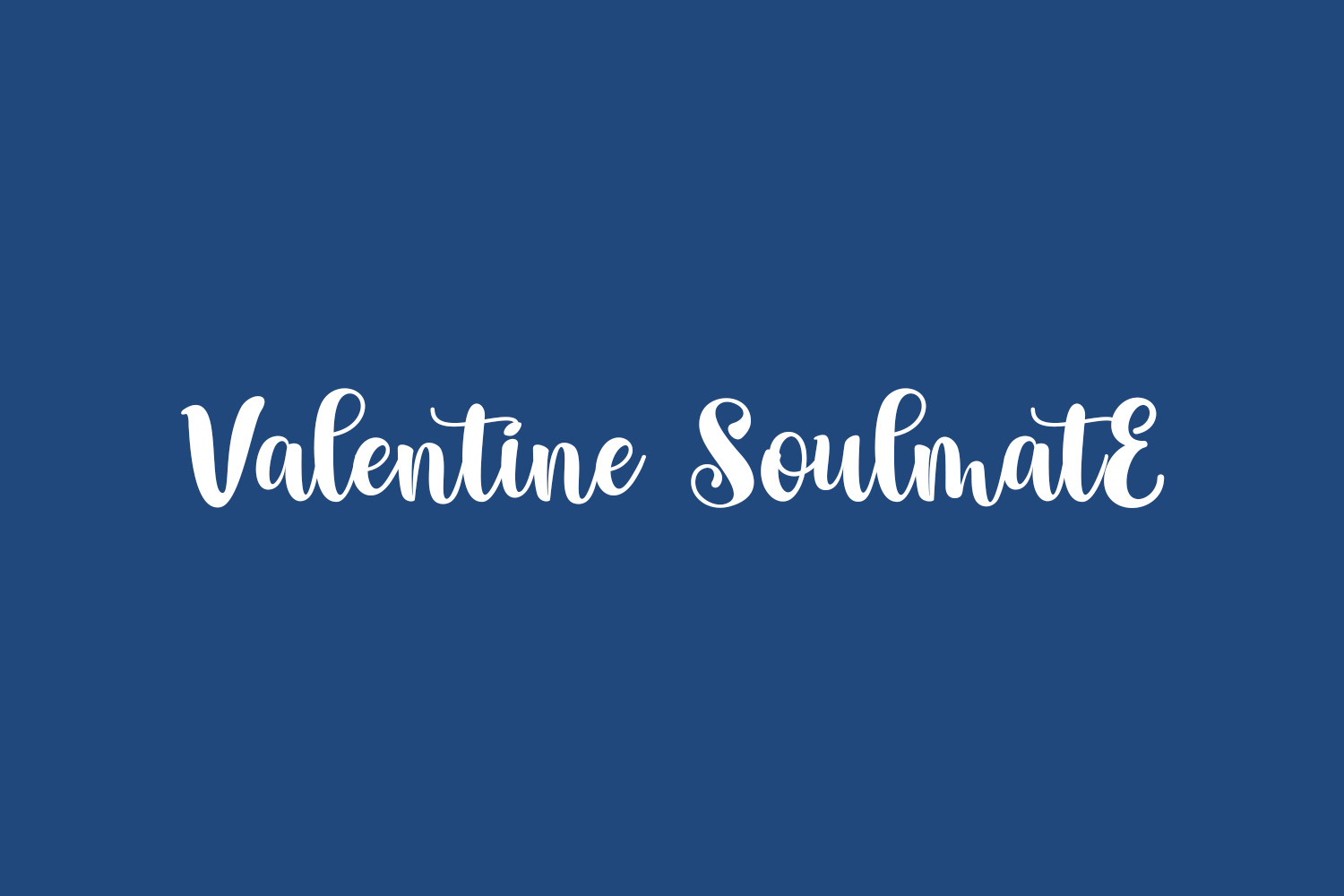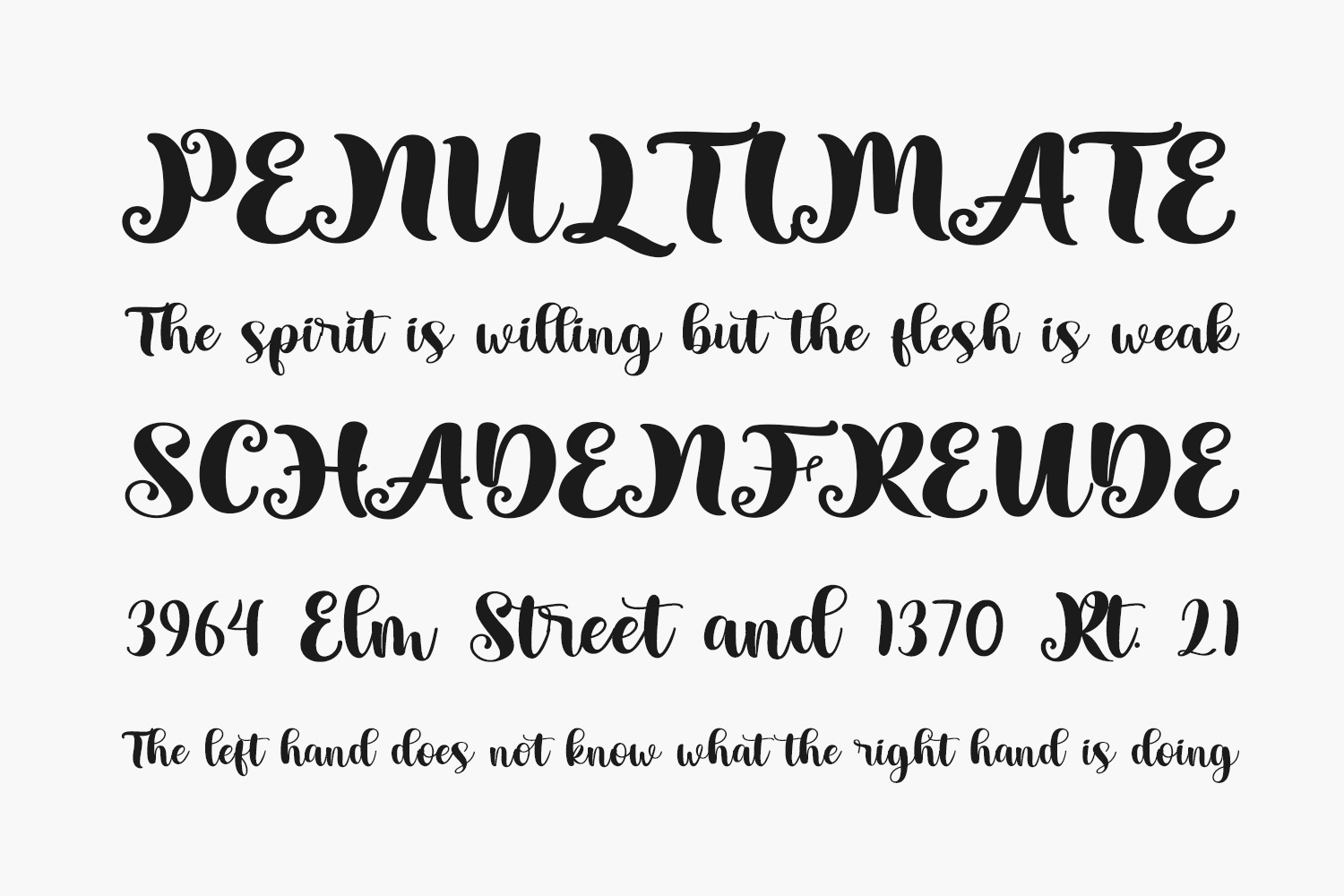
Valentine Soulmate Free Font is a sweet and cursive handwritten font. This gentle font will look gorgeous on a variety of design ideas. Valentine Soulmate Free Font was designed by Elevatype Co and is free for personal use only. Please purchase the full version for commercial use.